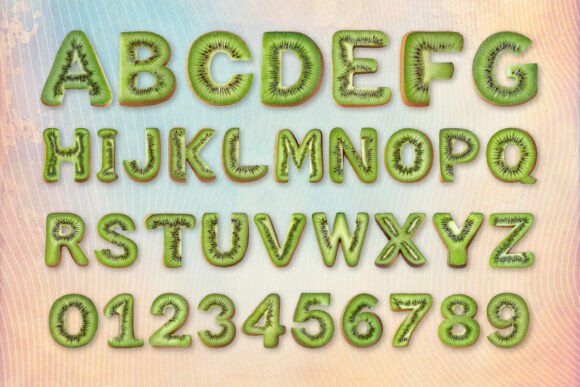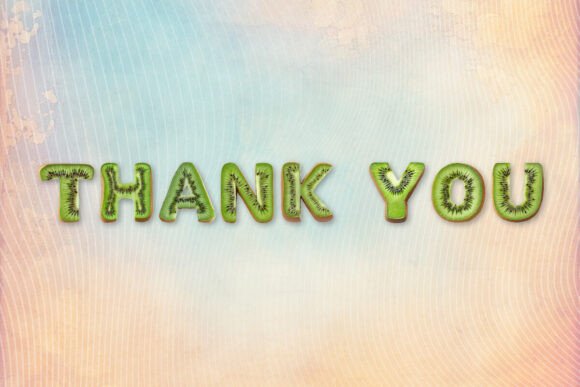
Introduction to Kiwi Fruit Font
Have you ever been brainstorming ideas for a new design project, and suddenly, the perfect inspiration strikes? Maybe it was a refreshing summer breeze, a vibrant sunset, or the crunch of a juicy kiwi fruit. For designers, those moments of creative spark are what drive us to bring our ideas to life. And now, with the introduction of the Kiwi Fruit Font, you can infuse that same carefree spirit into your designs.
As a high-quality, summer-inspired typeface, the Kiwi Fruit Font is the perfect addition to any design resource. With its vibrant, exotic appeal, this font is sure to bring a splash of freshness to your creative projects. Whether you’re working on a free download or a paid commission, this font is sure to elevate your work and make it stand out from the crowd.
Key Features of Kiwi Fruit Font
- Unique characteristics include stylized illustrations and playful typography
Honest Review: Kiwi Fruit Font
As a designer, I’m always on the lookout for high-quality design resources to elevate my creative projects. The Kiwi Fruit Font caught my eye, and I was excited to give it a try.
- ✨ Unique and playful design style that adds a fun touch to any project
- ✨ Includes a variety of characters, including uppercase and lowercase letters, numbers, and punctuation marks
- ⚠️ Limited font sizes and styles, which may not be suitable for all design projects
- ⚠️ Not ideal for use in situations where a transparent background is required, as the font’s design may not show up well
Overall, I think the Kiwi Fruit Font is a great addition to any designer’s toolkit. While it may have some limitations, its unique design style and free download make it a great option for creative projects.
The Kiwi Fruit Font is a unique, high-quality font that can add a touch of creativity to your design projects. It’s available for free download and comes with a transparent background, making it easy to customize and integrate into your work.
Common Use Cases for Kiwi Fruit Font
The Kiwi Fruit Font is perfect for a variety of design projects, including: Branding and marketing materials, social media graphics, blog posts and articles, and even custom invitations and event materials. With its unique and creative design, the Kiwi Fruit Font is sure to add a touch of personality to any project.